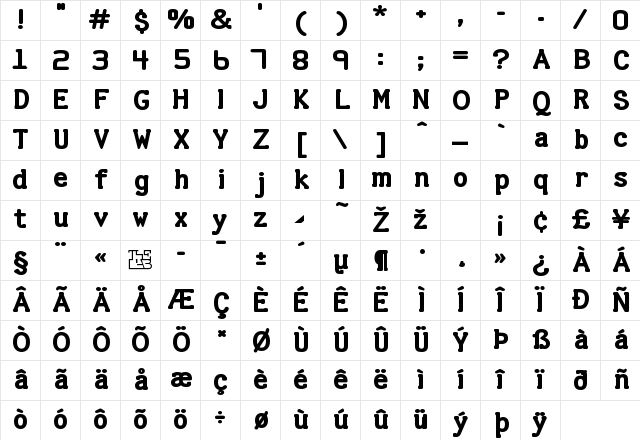
Halter Regular
Designer: Apostrophe
Design Context for Halter
Halter is a composed and adaptable typeface that performs quietly and consistently across a wide range of design contexts.